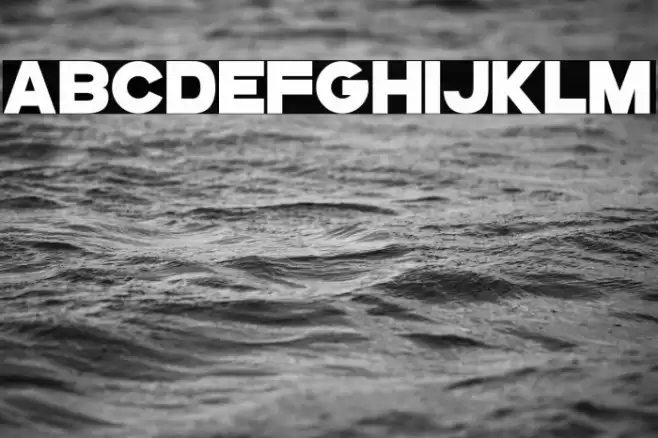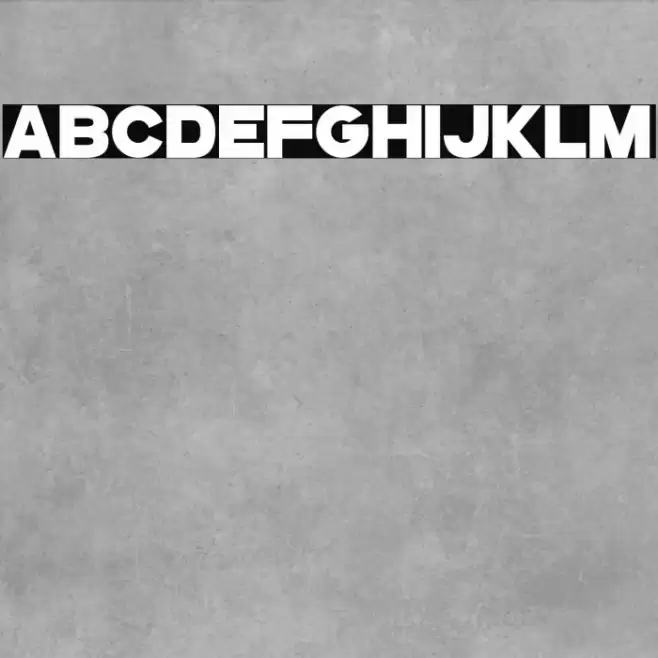
GoGoPosterPunch Font
GoGoPosterPunch Description
This bold and impactful font features strong geometric shapes and a modern aesthetic. The uppercase letters are uniform in height, with a consistent stroke width that gives the font a powerful presence. The numbers and special characters maintain the same boldness, ensuring a cohesive look across all characters. The font's design is clean and straightforward, making it ideal for attention-grabbing headlines and posters. Its bold nature and lack of serifs contribute to a contemporary and assertive style, suitable for projects that require a strong visual impact.
A bold, geometric font ideal for impactful headlines and modern designs from Uncategorized fonts.
- Font: GoGoPosterPunch
- Proposed Projects: Perfect for posters, advertising, branding, and any project needing a strong visual impact.